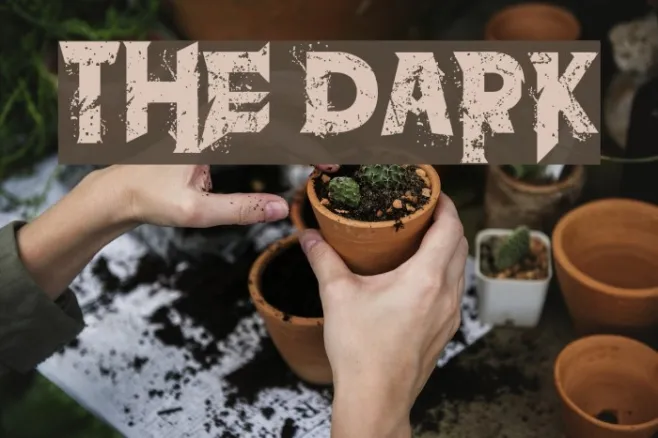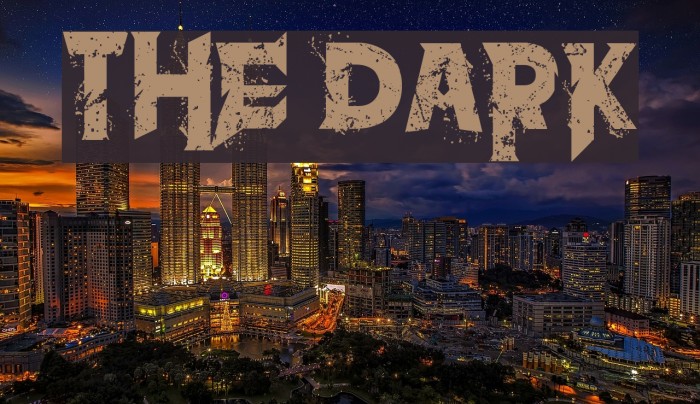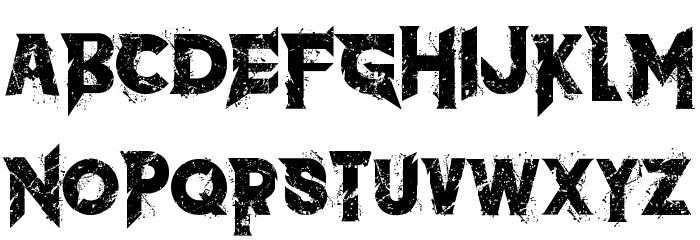
the dark Font
This font features a bold, distressed style with a grunge aesthetic. The characters are heavily textured, giving them a rugged and worn appearance. The uppercase letters are prominent, with sharp angles and irregular edges that contribute to the overall edgy look. The numbers and special characters maintain the same distressed style, ensuring consistency across all glyphs. This font is ideal for projects that require a bold statement or a gritty, urban feel.
A bold, distressed font with a grunge aesthetic and rugged texture.
• Proposed Projects: Ideal for album covers, posters, streetwear branding, and any design needing a gritty, urban vibe.
• Category: Decorative/Display
• Overall Style: Grunge, Urban, Edgy
• Use Case: Headlines, Posters, Branding